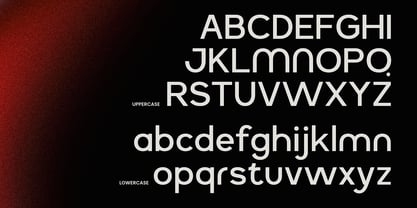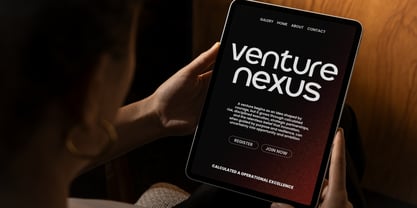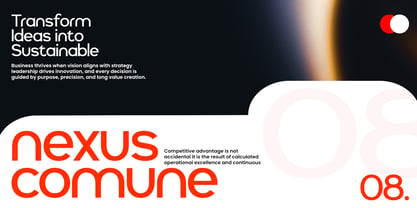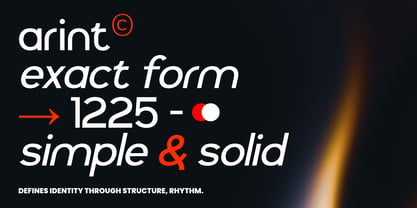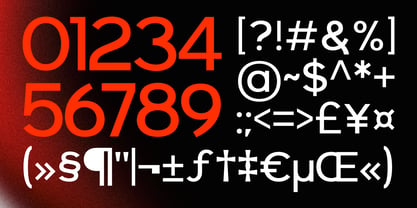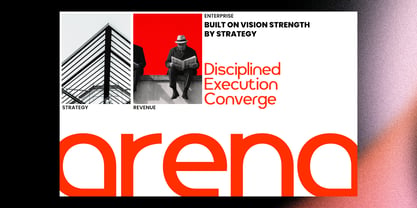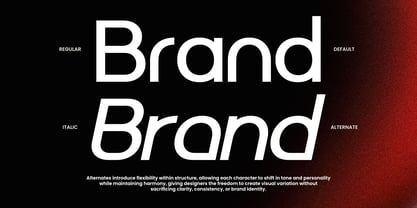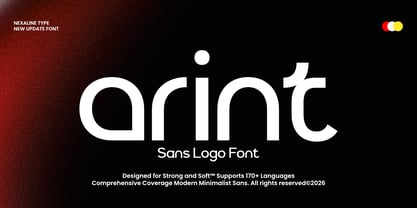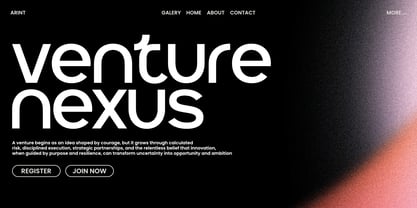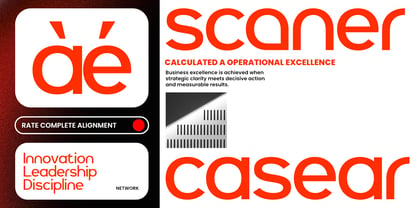
Arint
by Nexaline Type
The Arint Font Family was designed by Anggi Surya and published by Nexaline Type. Arint contains 2 styles and family package options. More about this family
Arint — Logo Font is a clean and modern display typeface designed for minimal branding and distinctive wordmark design. With smooth curves, rounded letterforms, and a clean visual structure, Arint delivers a friendly and contemporary typographic voice. Its simplified geometry and soft terminals create a clear and approachable appearance, ideal for logo-focused design. Designed to emphasize clarity and memorability, this typeface balances minimal form with strong visual identity, making it suitable for branding projects that require a modern and recognizable logo style. Balanced proportions and refined simplicity allow Arint to perform effectively across a wide range of branding contexts. Whether used for logos, wordmarks, brand identities, or minimalist visual systems, this typeface adds clarity and modern character to contemporary design projects. Features Uppercase & Lowercase Numbers & Punctuation Minimal Logo Construction Multilingual Support (170+ Languages)